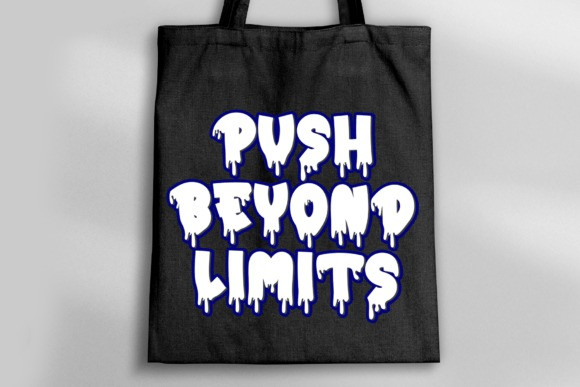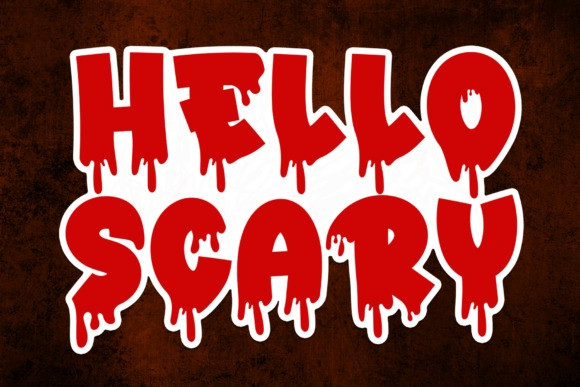
Hello Scary Font
Hello Scary Font is an incredibly cool and unique display font. It has a modern yet whimsical style and it will undoubtedly immerse your designs into a magical world.